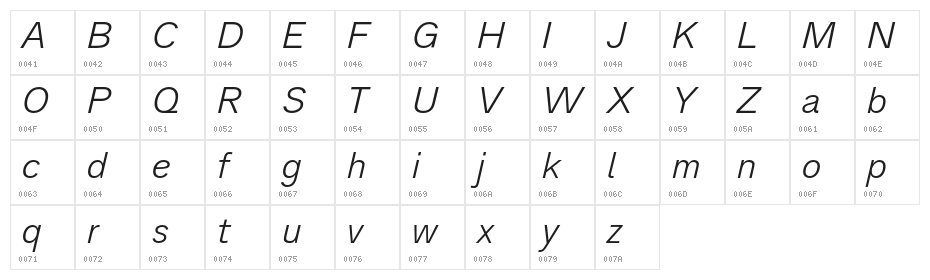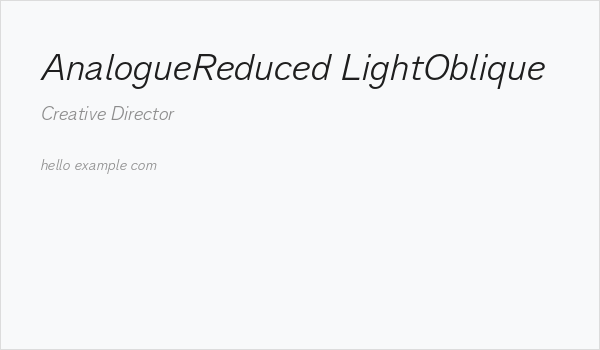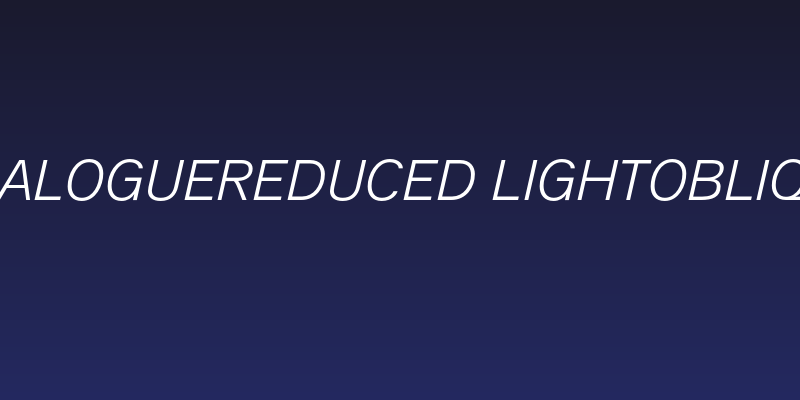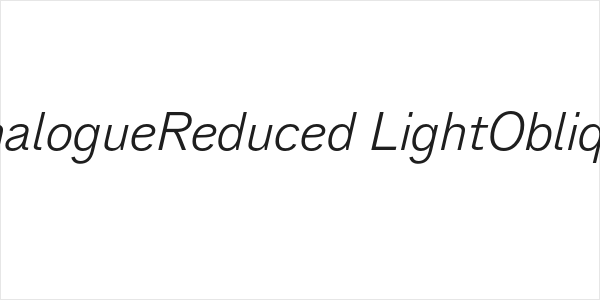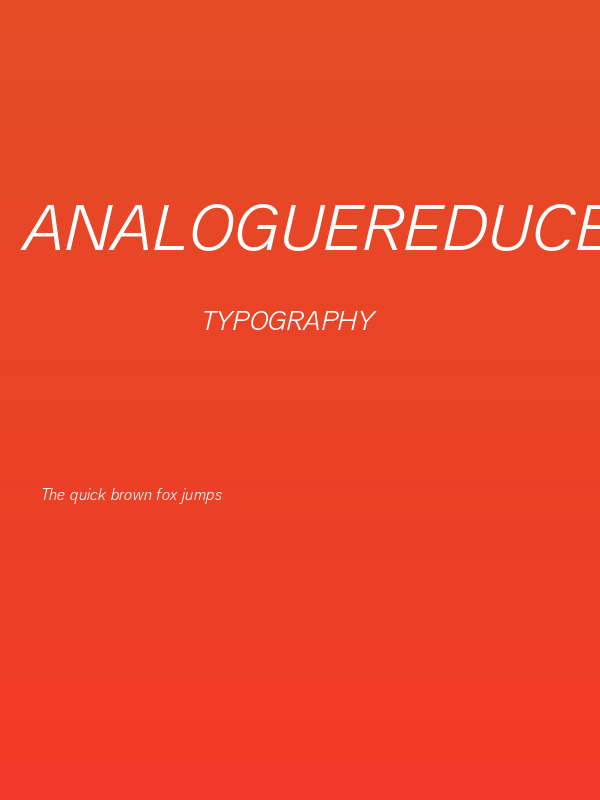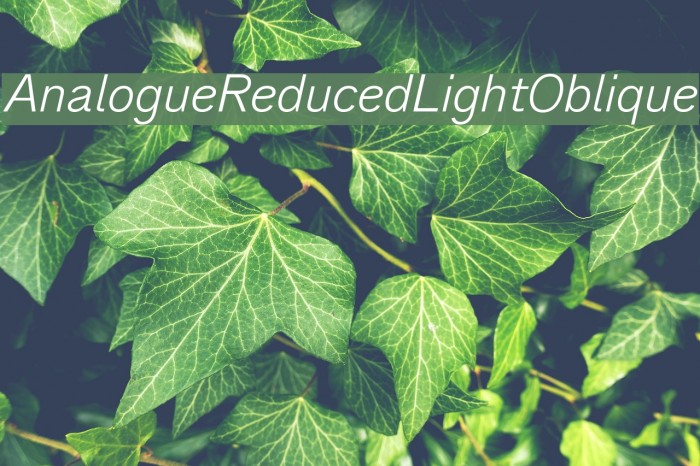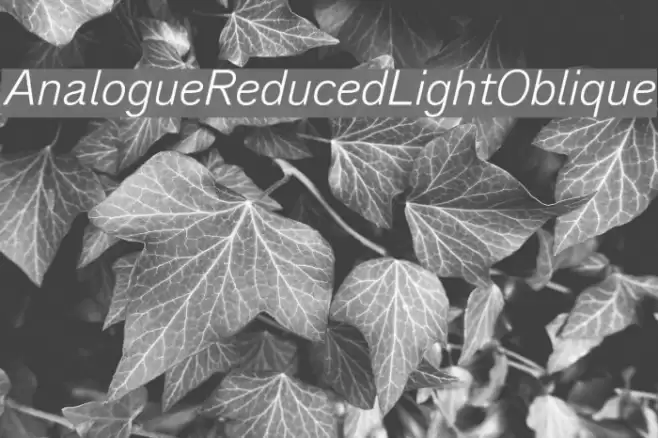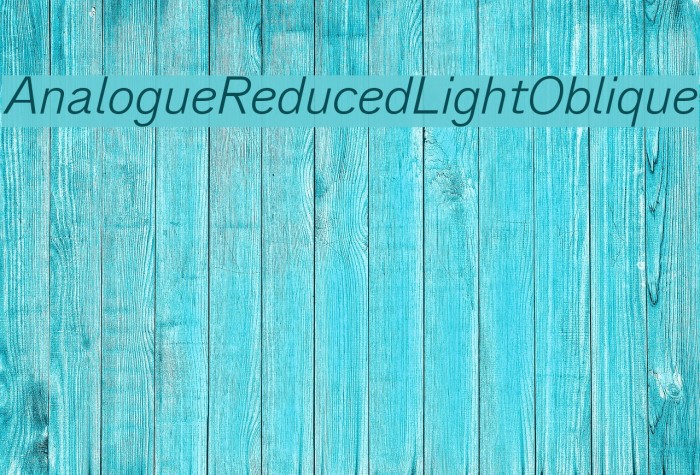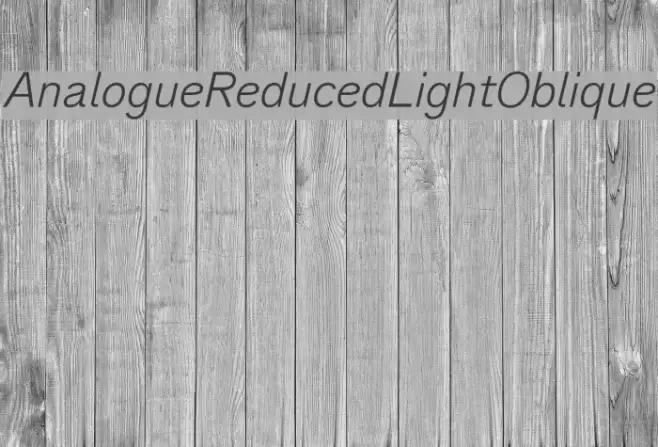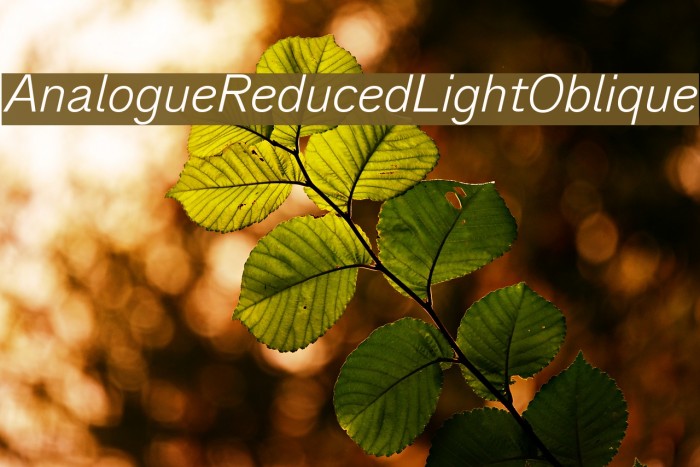
AnalogueReduced-LightOblique Font
AnalogueReduced-LightOblique Description
This font exhibits a sleek and modern design with a light oblique style, characterized by its clean lines and subtle slant. The characters are evenly spaced, providing a harmonious and readable appearance. The uppercase and lowercase letters maintain a consistent flow, enhancing the font's elegance. Its minimalistic approach makes it suitable for a variety of applications, offering a professional yet approachable feel. The numerals and special characters are designed with the same attention to detail, ensuring uniformity across all elements.
| Use Case | Headlines, Body text, Logos |
| Proposed Projects | Ideal for modern branding, editorial design, digital interfaces, and minimalist posters. |